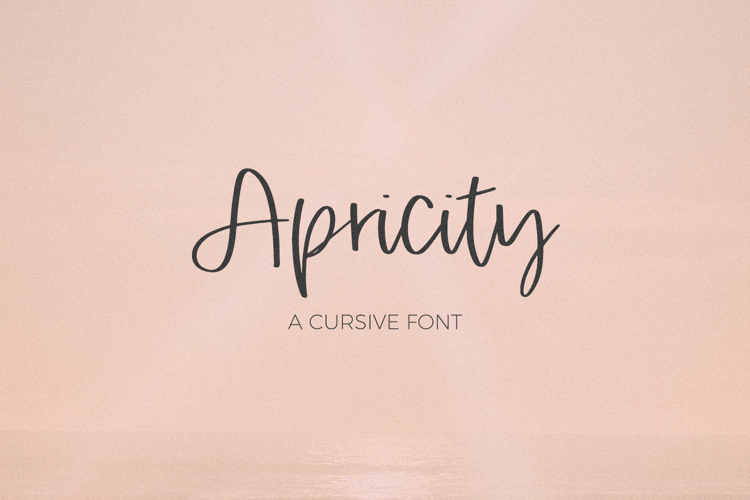
Apricity Script
Apricity Script is a cute cursive font with a casual handwritten quality. This font is perfect for logos & branding, greeting cards, painted banners, digital planners, note-taking apps, Canva, Cricut projects, Silhouette projects, designing SVG files, laser cutting projects, & more.
- 11 ligatures - ar, el, er, gg, ir, ll, or, rr, ss, tt, ur